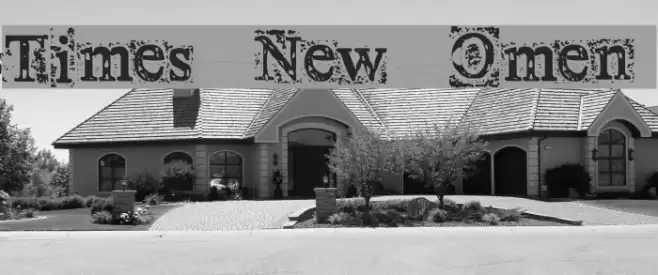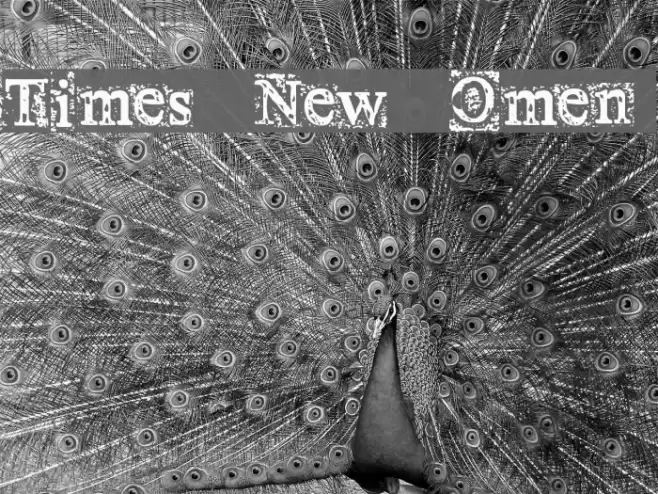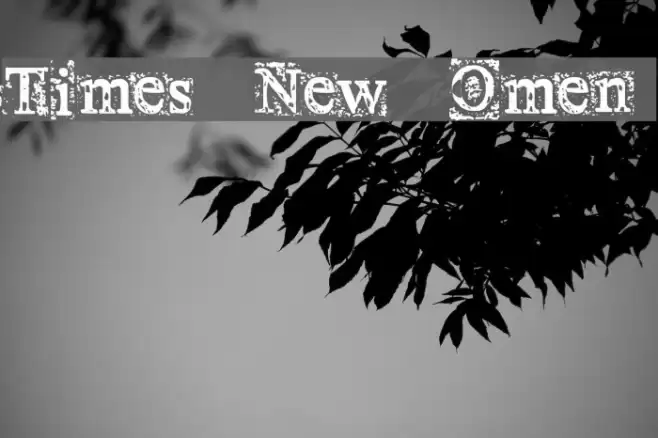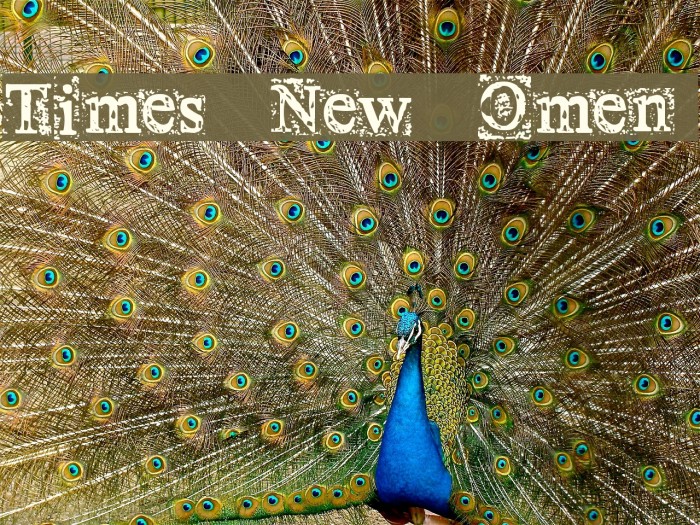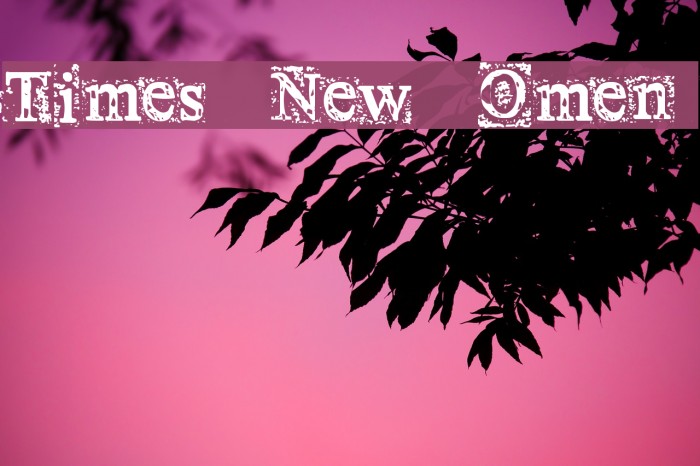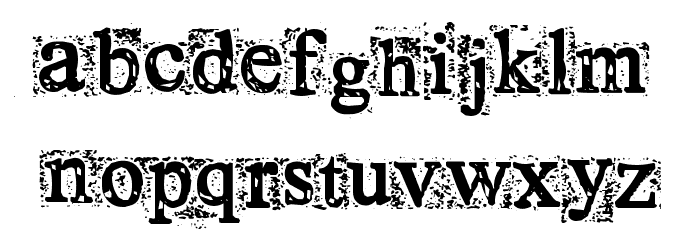
Times New Omen Font
Times New Omen Description
This font features a distressed, grunge aesthetic with a serif style. The characters are bold and have a textured appearance, giving them a worn, vintage look. The uppercase and lowercase letters maintain a consistent style, with noticeable serifs and a slightly rough edge that adds to the overall distressed effect. The font's unique texture makes it stand out, providing a sense of character and depth. It is suitable for projects that require a bold statement or a retro, edgy vibe.
A bold, distressed serif font with a grunge aesthetic from Distorted Eroded fonts.
- Proposed Projects: Ideal for album covers, posters, vintage-themed designs, and branding that requires a bold, edgy look.
- Overall Style: Vintage